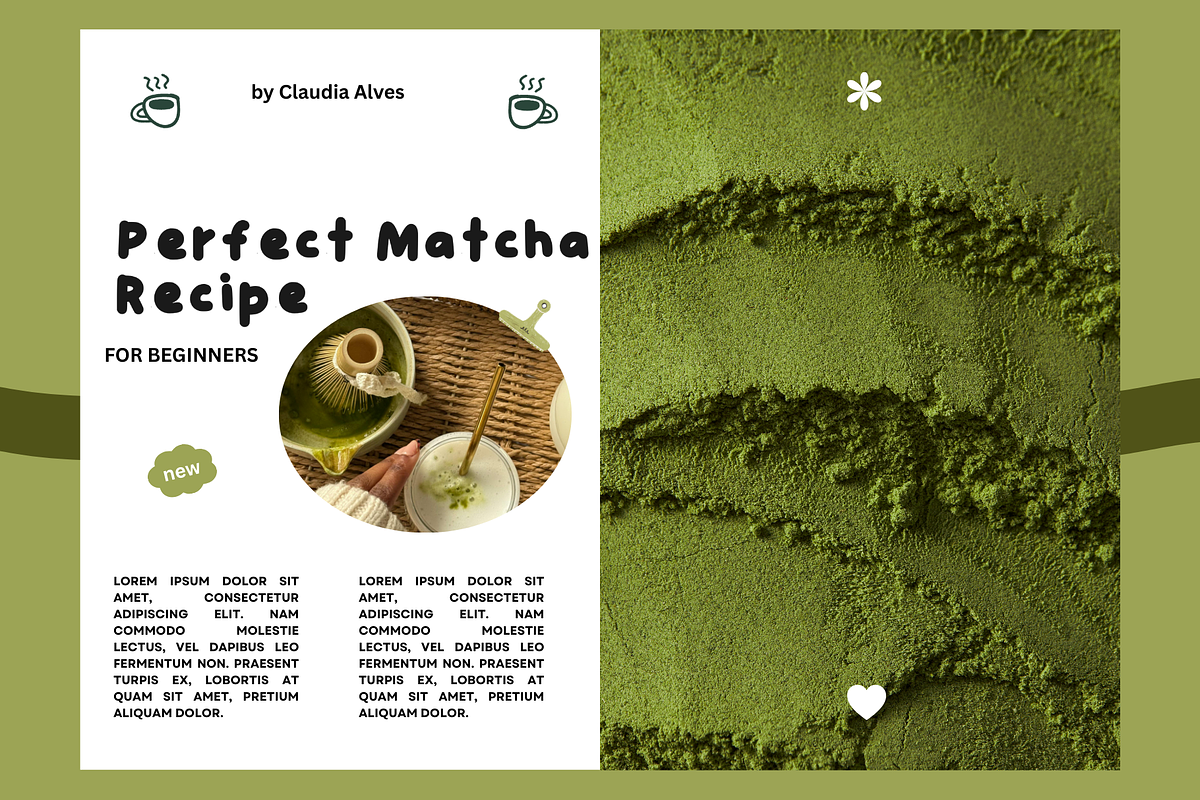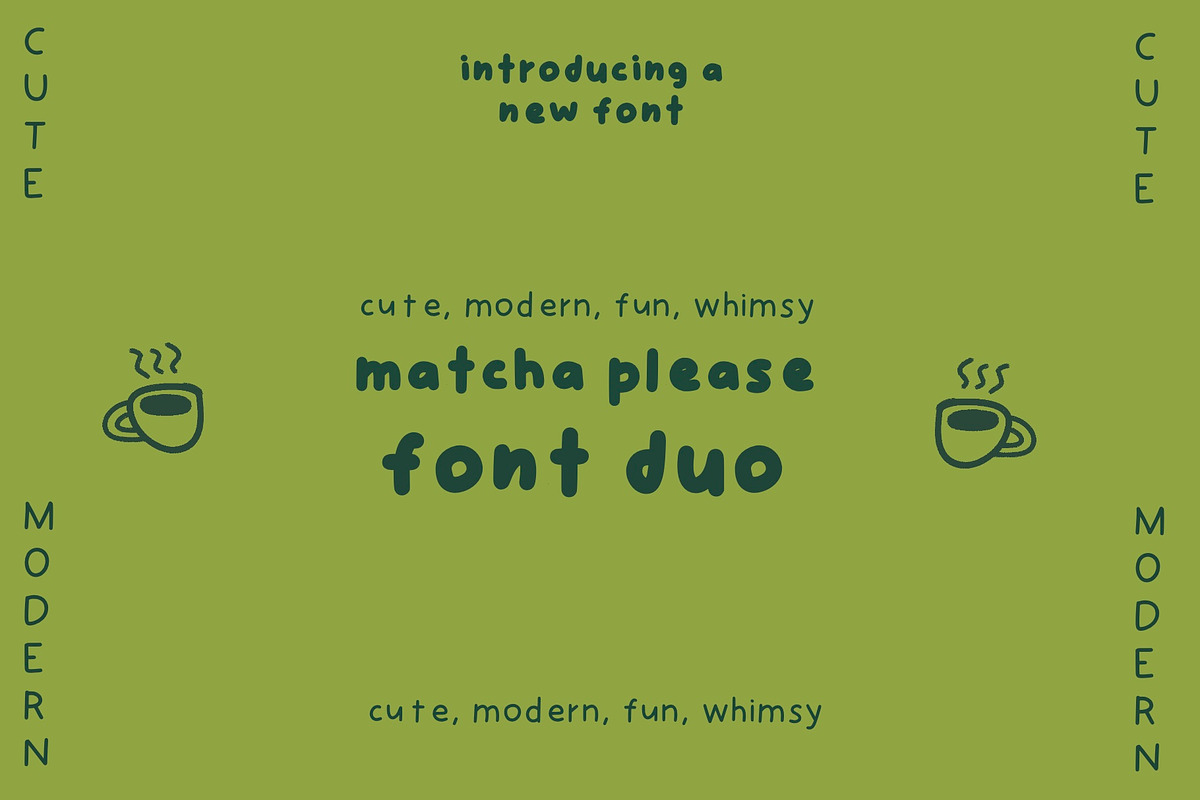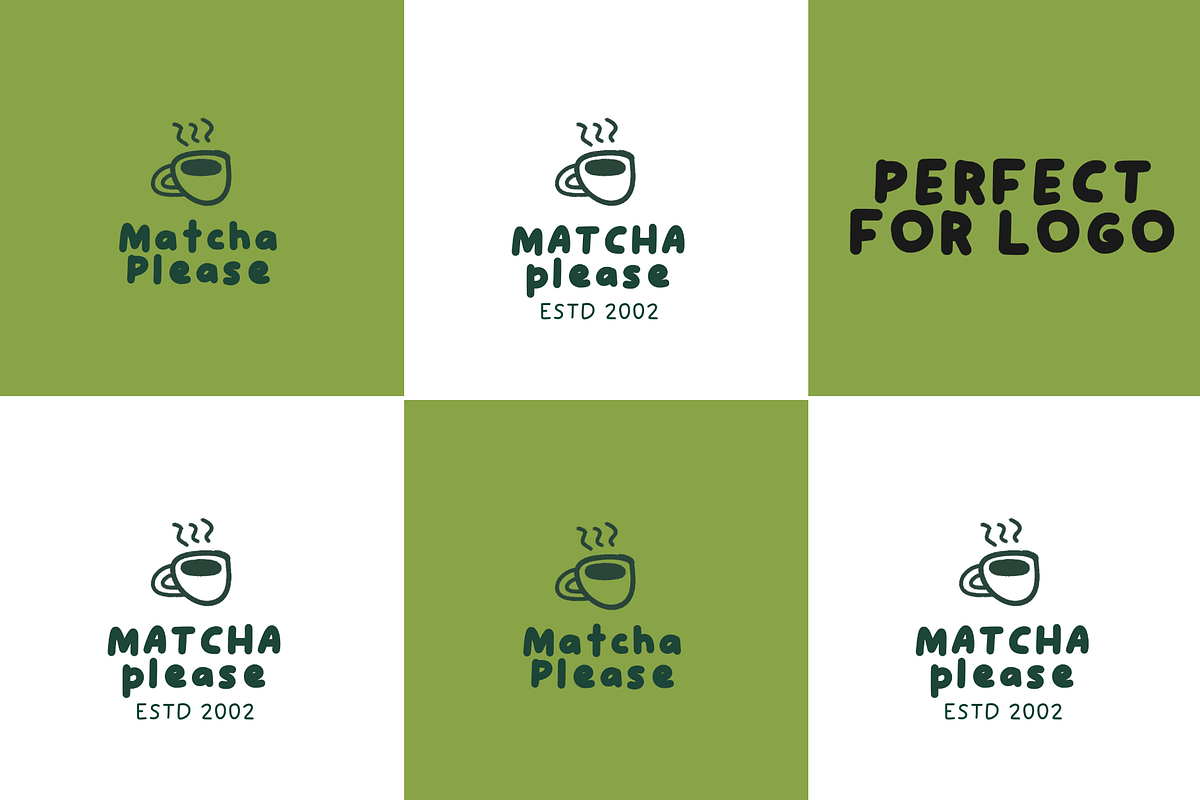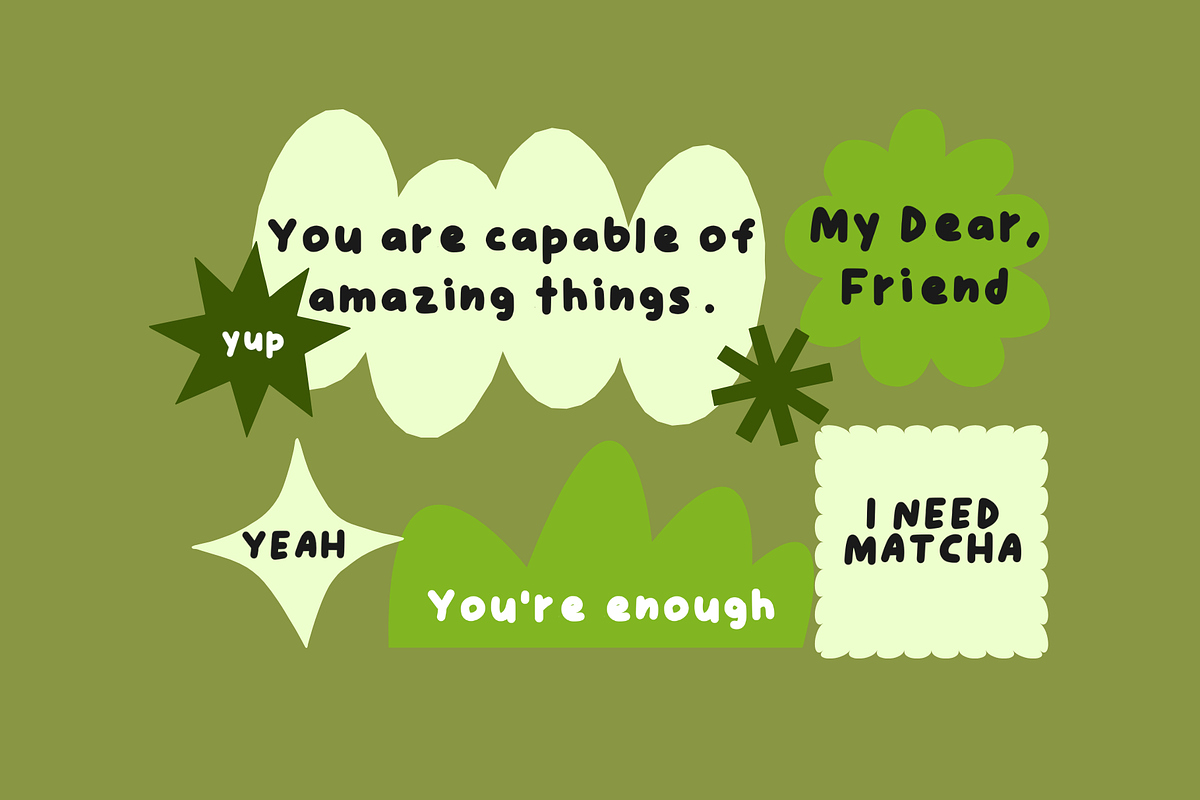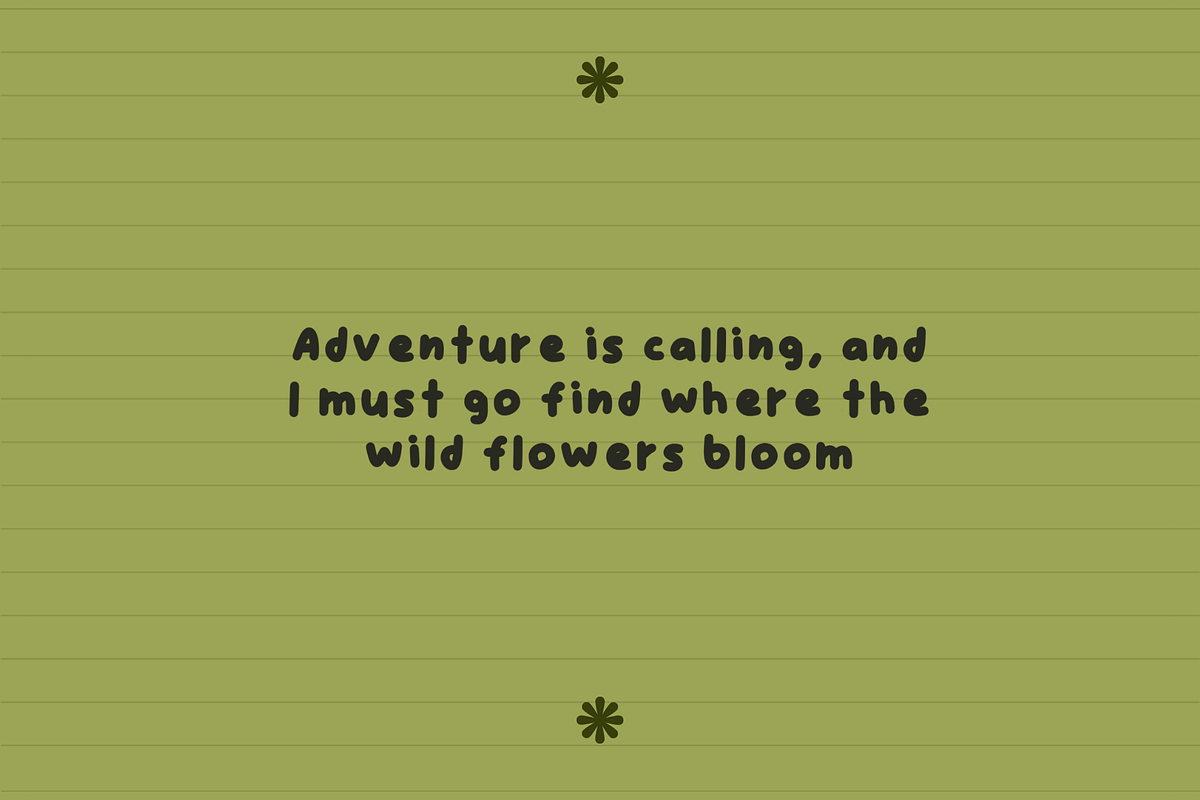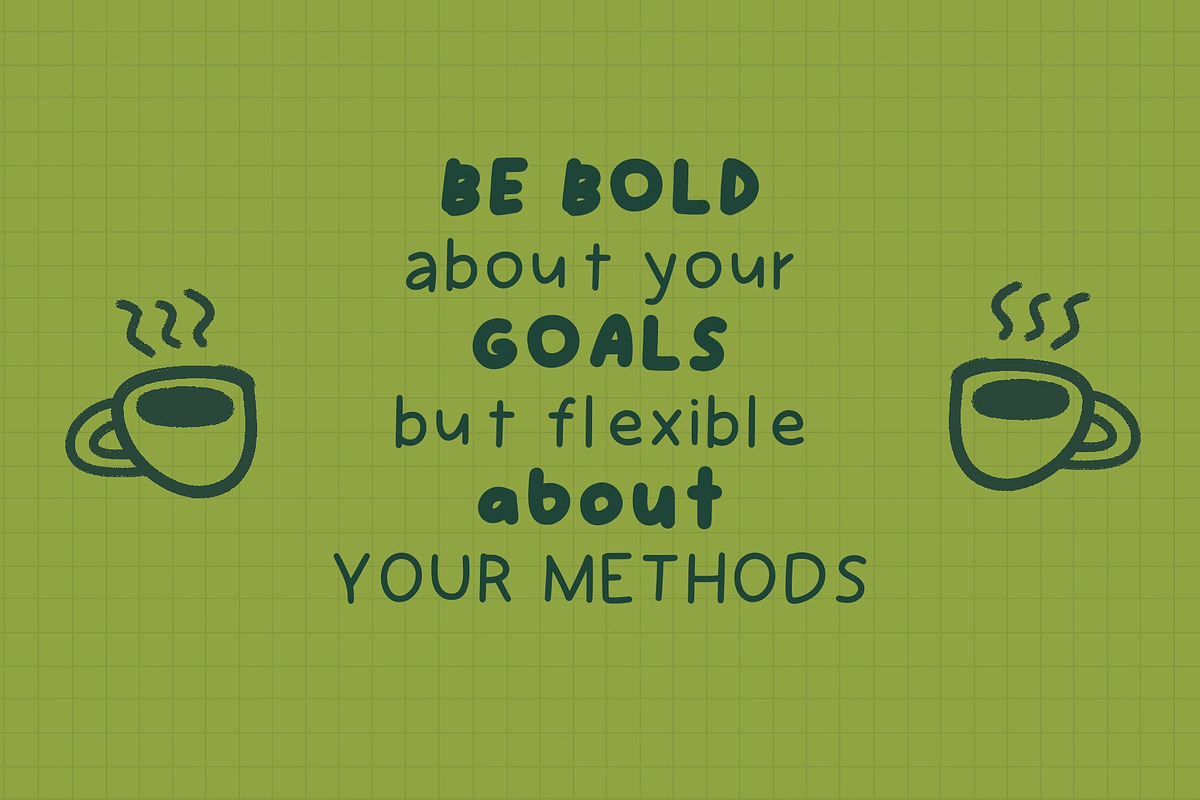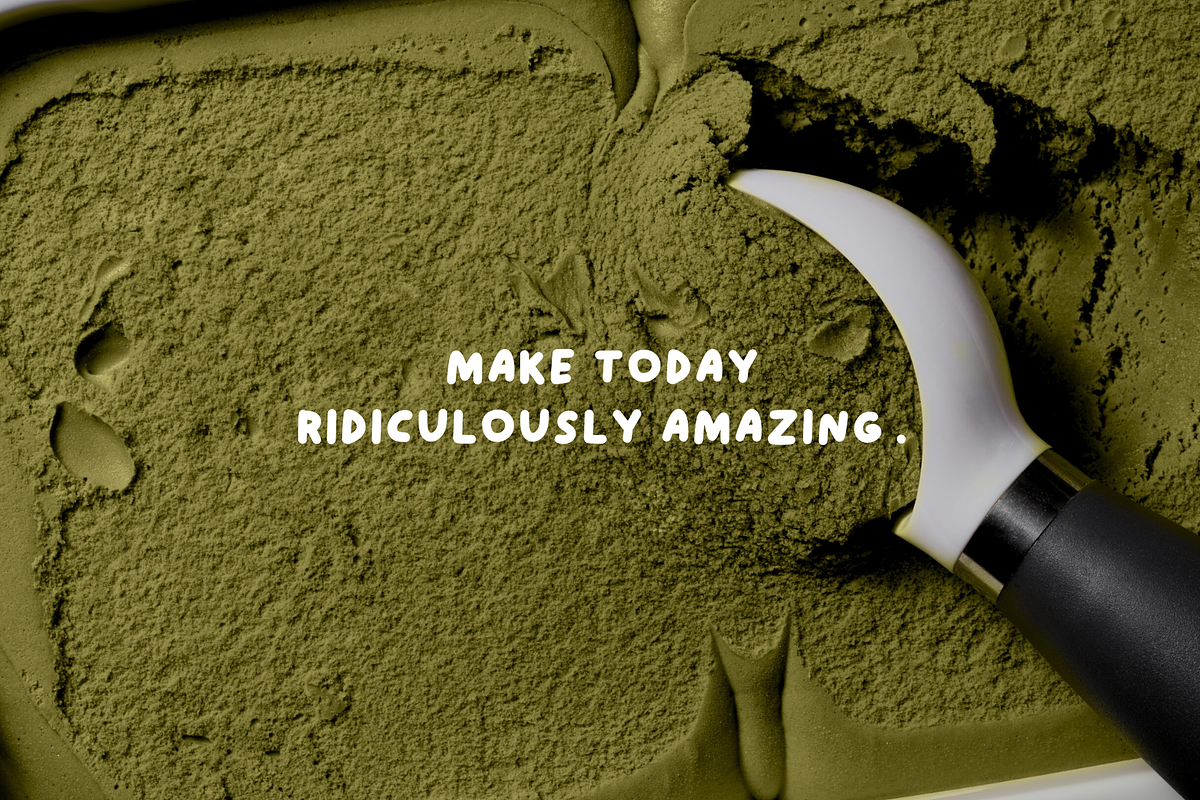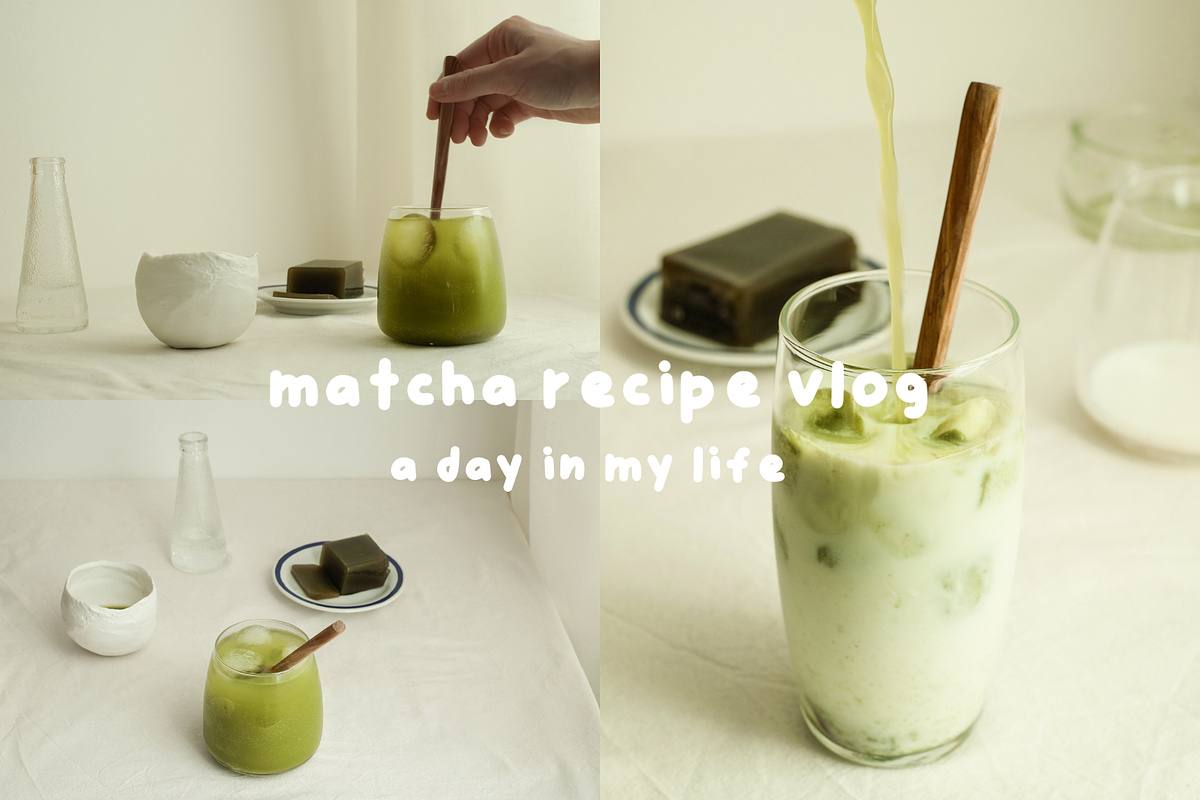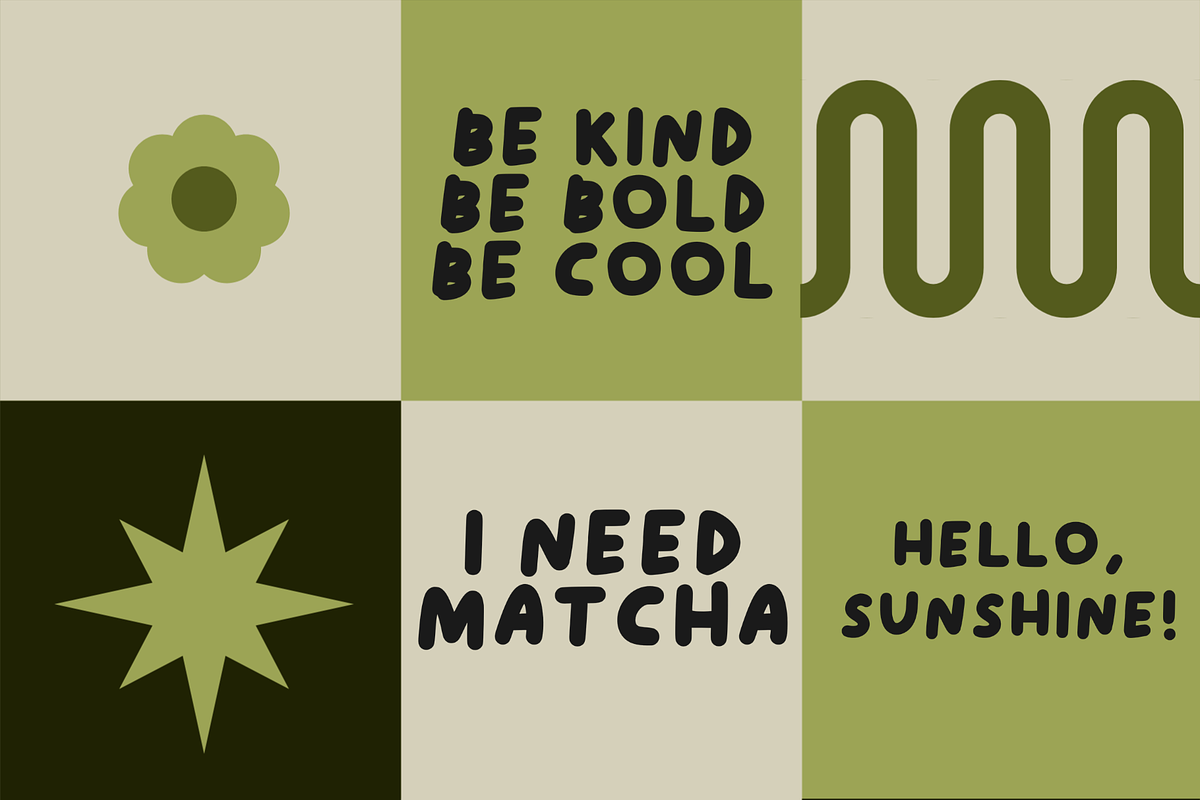
matcha please font duo
cute handwritten font duo for a charming, hand-drawn typeface that strikes a perfect balance between playful energy and cozy aesthetics. Its thick, rounded strokes and organic irregularities give it a "bubbly" feel, making it ideal for creative projects that need a personal, friendly touch.
thin and bold versions